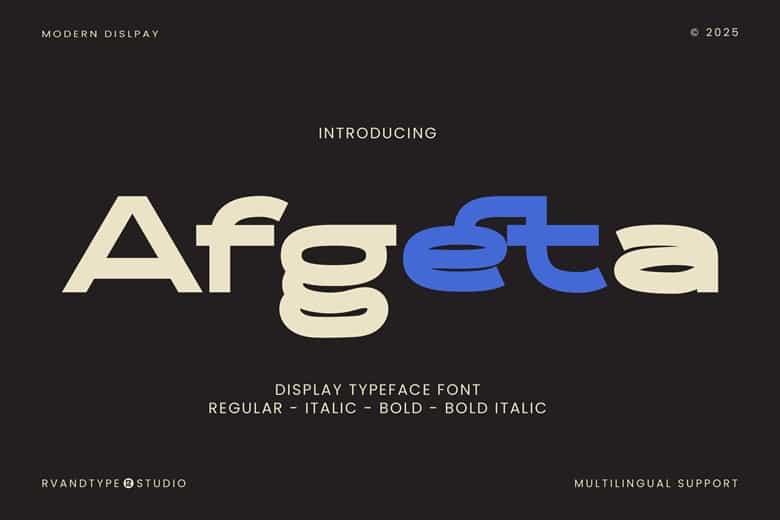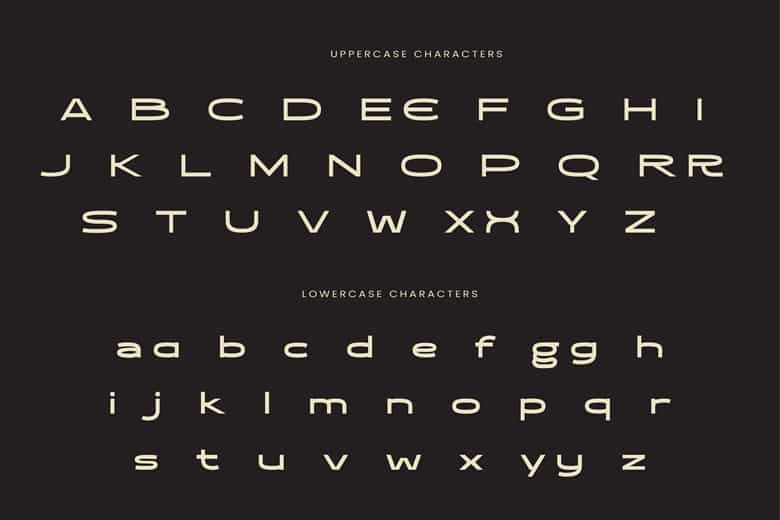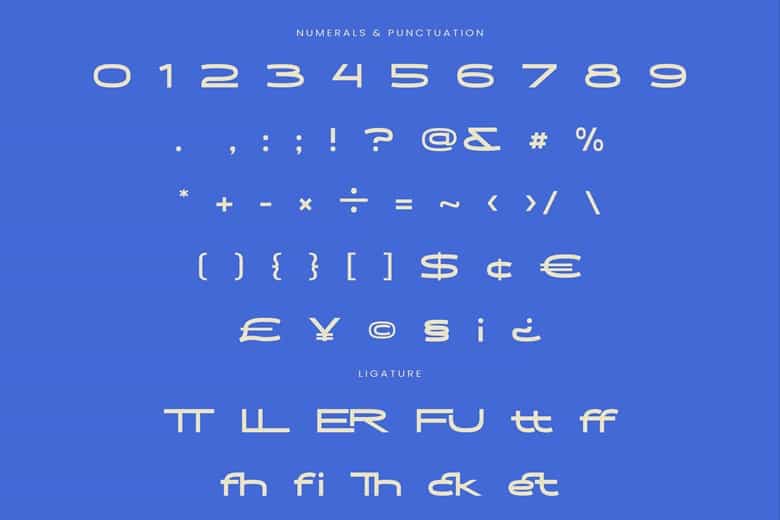
Afgeta is a display sans serif font to project you into the sleek, forward thinking future. Combining the sportiness with minimalism brings in a futuristic aesthetic that hits right the mark with the sense of polish and pizazz at the same time.